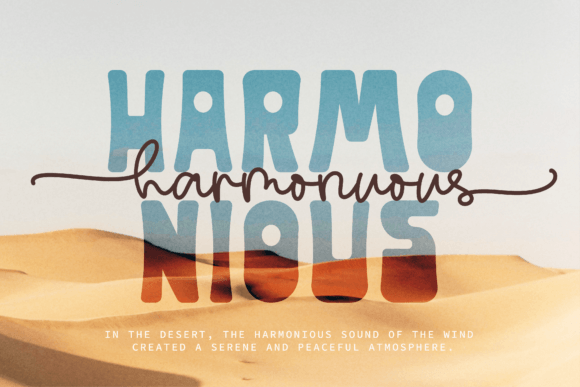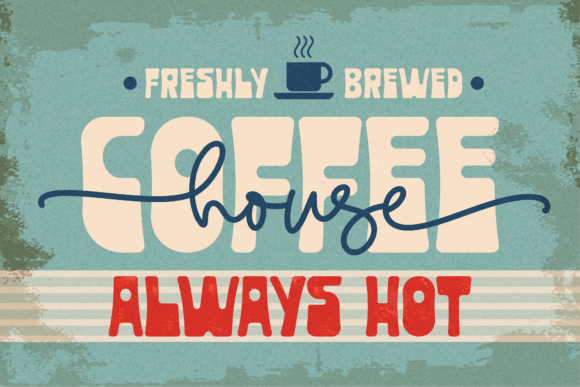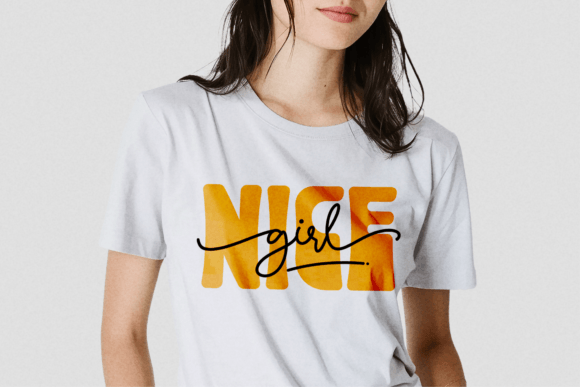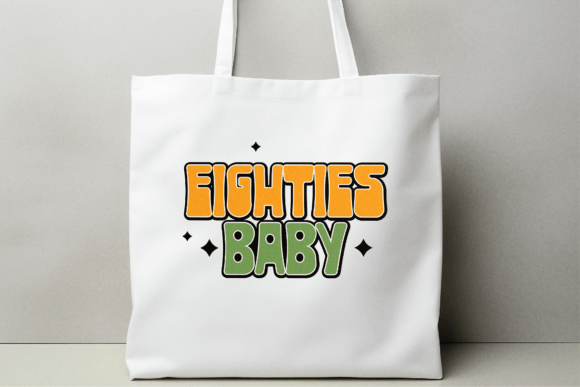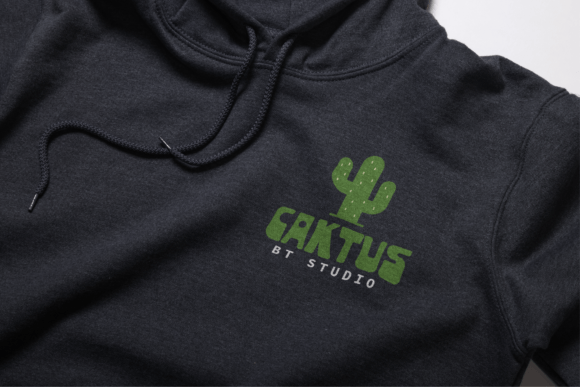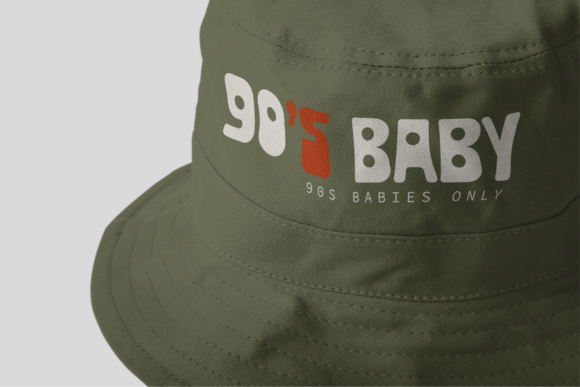
Coffee Butter Font: The Grooviest Duo for Your Hippie Designs
Are you a designer or crafter looking for a font that embodies the free-spirited vibe of the 60s and 70s? Look no further than Coffee Butter Font, a cool retro duo that combines a display font with a monoline script. This dynamic duo is perfect for creating hippie-inspired designs that require a groovy look and a guaranteed impact.
The Coffee Butter Font Duo
Coffee Butter Font consists of two fonts: a display font and a monoline script font. The display font is bold, playful, and perfect for headlines, while the monoline script font is elegant, cursive, and great for adding a touch of sophistication to your designs. Together, they form a match made in heaven that’s sure to elevate your designs to the next level.
Key Features of Coffee Butter Font
- Retro vibe: Coffee Butter Font has a distinctly retro feel that’s perfect for hippie-inspired designs, vintage projects, and any other project that requires a groovy look.
- Dual-font combination: The font duo includes a bold display font and an elegant monoline script font, allowing you to mix and match to create unique and eye-catching designs.
- High-quality design: The font is designed with high-quality craftsmanship, ensuring that it looks great in any design or project.
Perfect for Hippie-Inspired Designs
Coffee Butter Font is specifically designed with hippie-inspired designs in mind. The font’s retro vibe and playful feel make it perfect for projects that require a groovy look, such as:
- Poster designs: Create eye-catching posters for music festivals, concerts, or other events with a hippie vibe.
- Branding and packaging: Add a touch of retro flair to your branding and packaging with Coffee Butter Font.
- Invitations and greeting cards: Create unique and eye-catching invitations and greeting cards with a hippie twist.
- Social media graphics: Stand out on social media with Coffee Butter Font’s bold and playful design.
Why Choose Coffee Butter Font?
There are many fonts to choose from, but Coffee Butter Font stands out from the rest for several reasons:
- Unique design: Coffee Butter Font has a unique and distinctive design that’s sure to make your designs stand out.
- Versatility: The font duo can be used for a wide range of projects, from posters and branding to invitations and social media graphics.
- Groovy vibe: The font’s retro vibe is perfect for hippie-inspired designs and projects that require a groovy look.
Tips for Using Coffee Butter Font
Here are some tips for getting the most out of Coffee Butter Font:
- Mix and match: Experiment with combining the display font and monoline script font to create unique and eye-catching designs.
- Play with colors: Coffee Butter Font looks great in a variety of colors, so don’t be afraid to experiment and find the perfect hue for your design.
- Add graphics: Consider adding graphics or illustrations to your design to enhance the hippie vibe.
- Keep it simple: Don’t overcomplicate your design – sometimes, less is more, and Coffee Butter Font’s bold design can speak for itself.